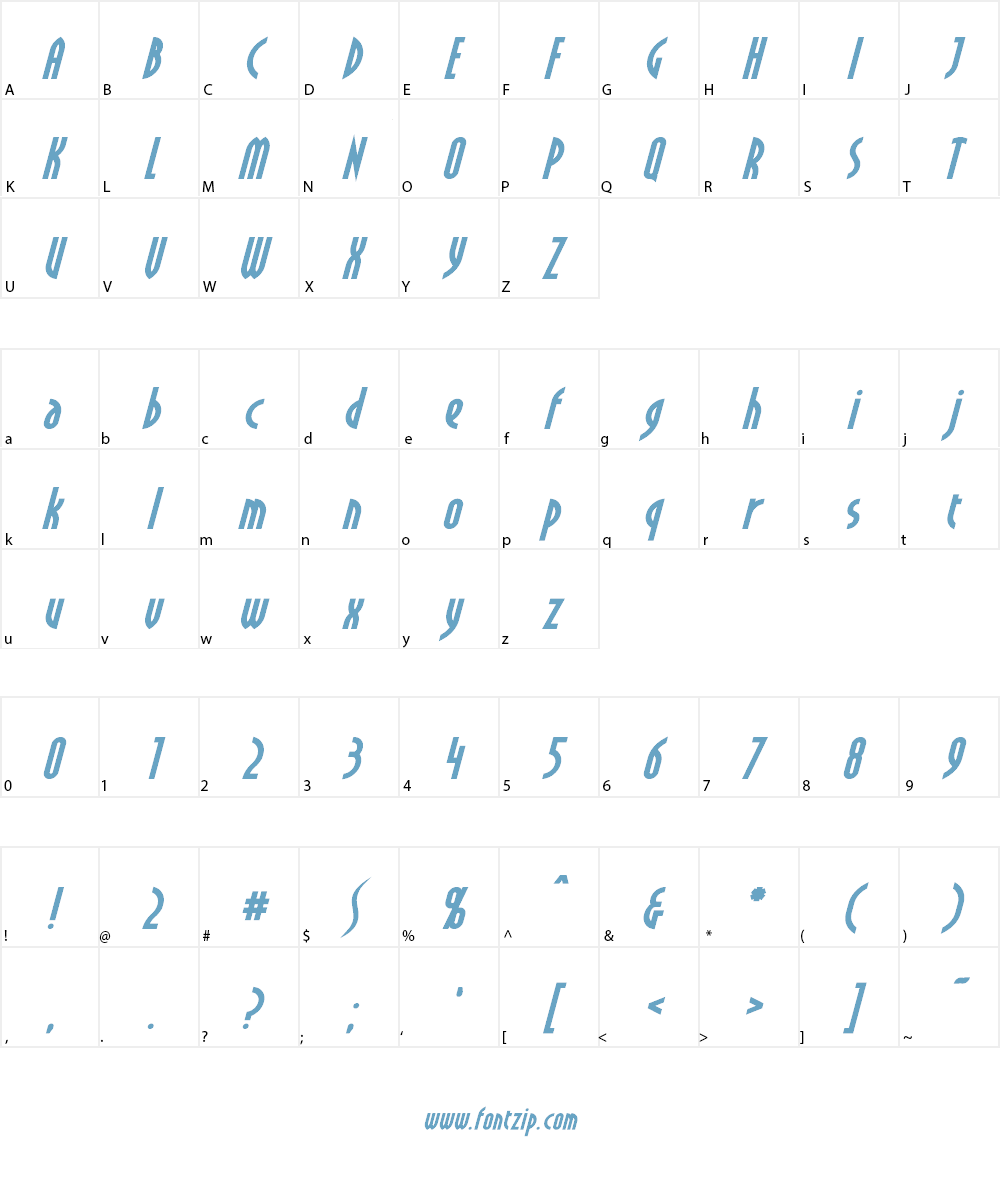
This retro-style font is actually based on the title logo from the "Farscape" television series. Includes full alphabet, extended punctuation, Euro. The "dollar sign" has been replaced with the large "swoosh" from the television logo. Includes bold and italic versions.
- Added OE and Per-Thousand glyphs
- Spacing cleanup